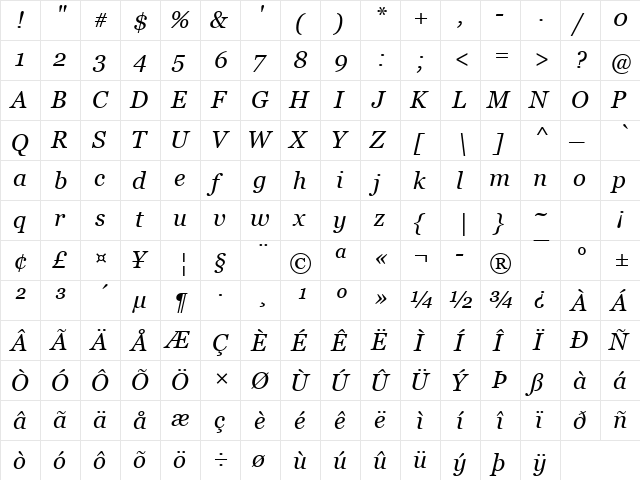
Georgia Italic
Design Context for Georgia Typeface
Georgia is a composed and adaptable typeface that performs quietly and consistently across a wide range of design contexts. Its italic angle brings a sense of urgency and motion to the letterforms.
Pro Tip: Try Georgia for annotation and caption copy alongside an upright companion — the contrast in angle creates a dynamic but ordered typographic system.